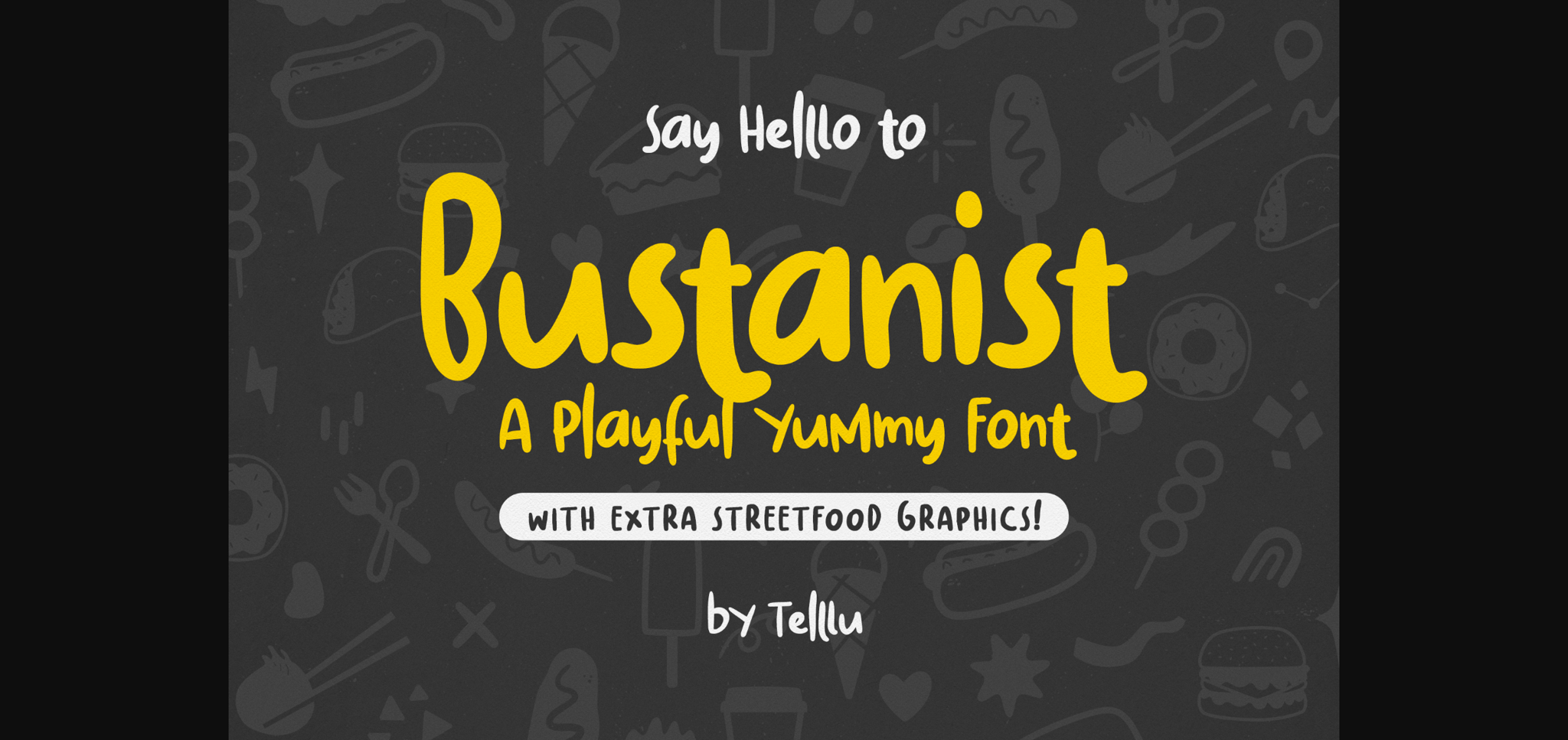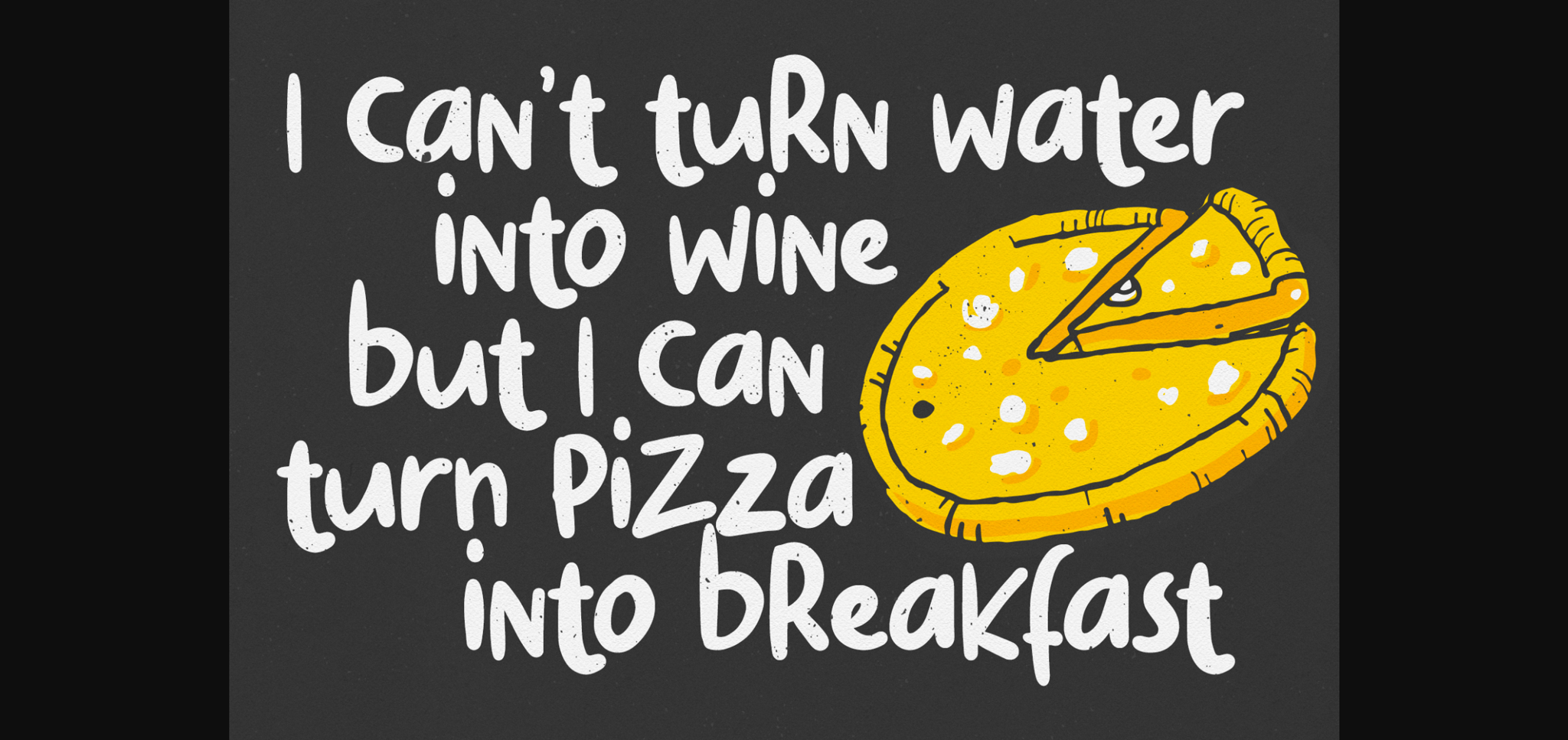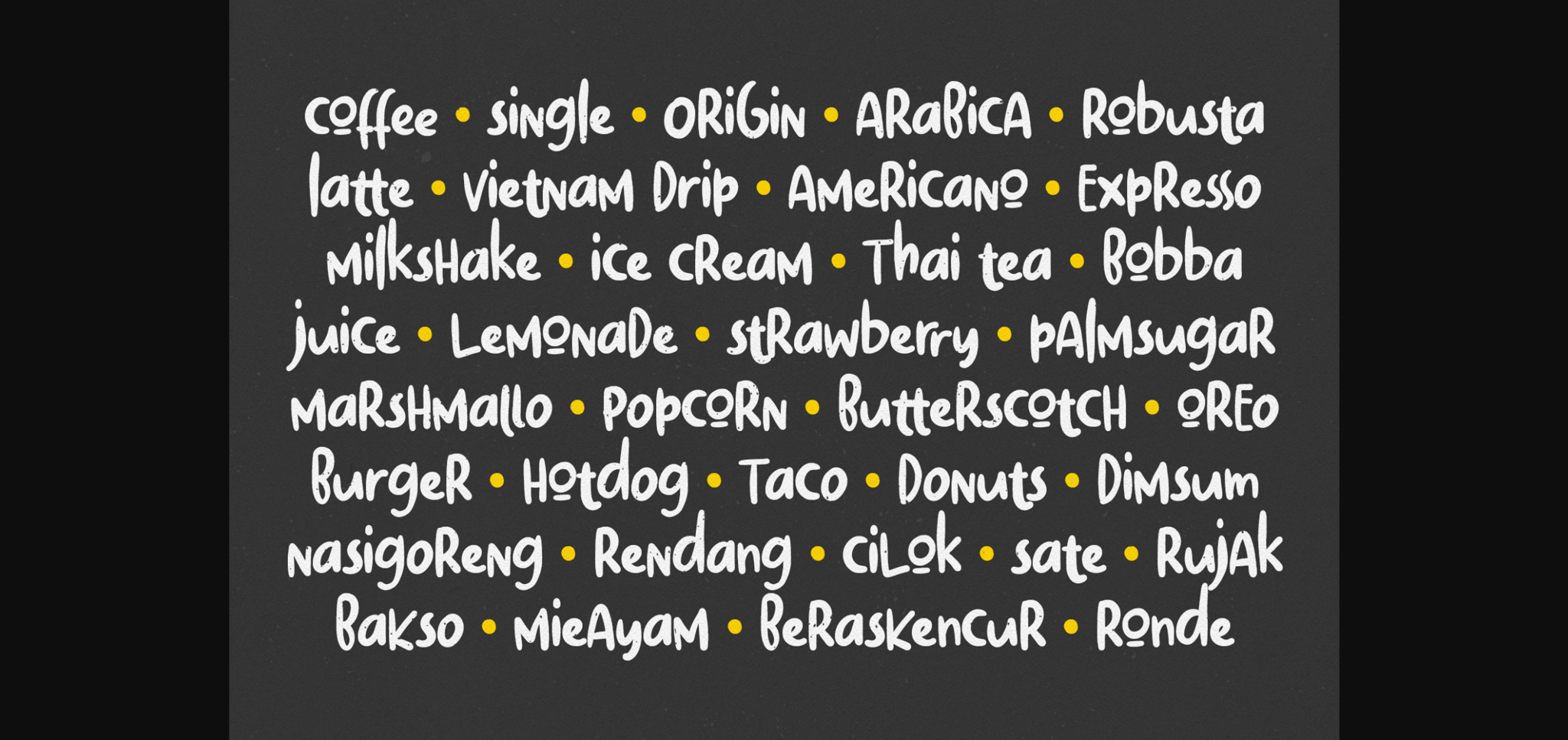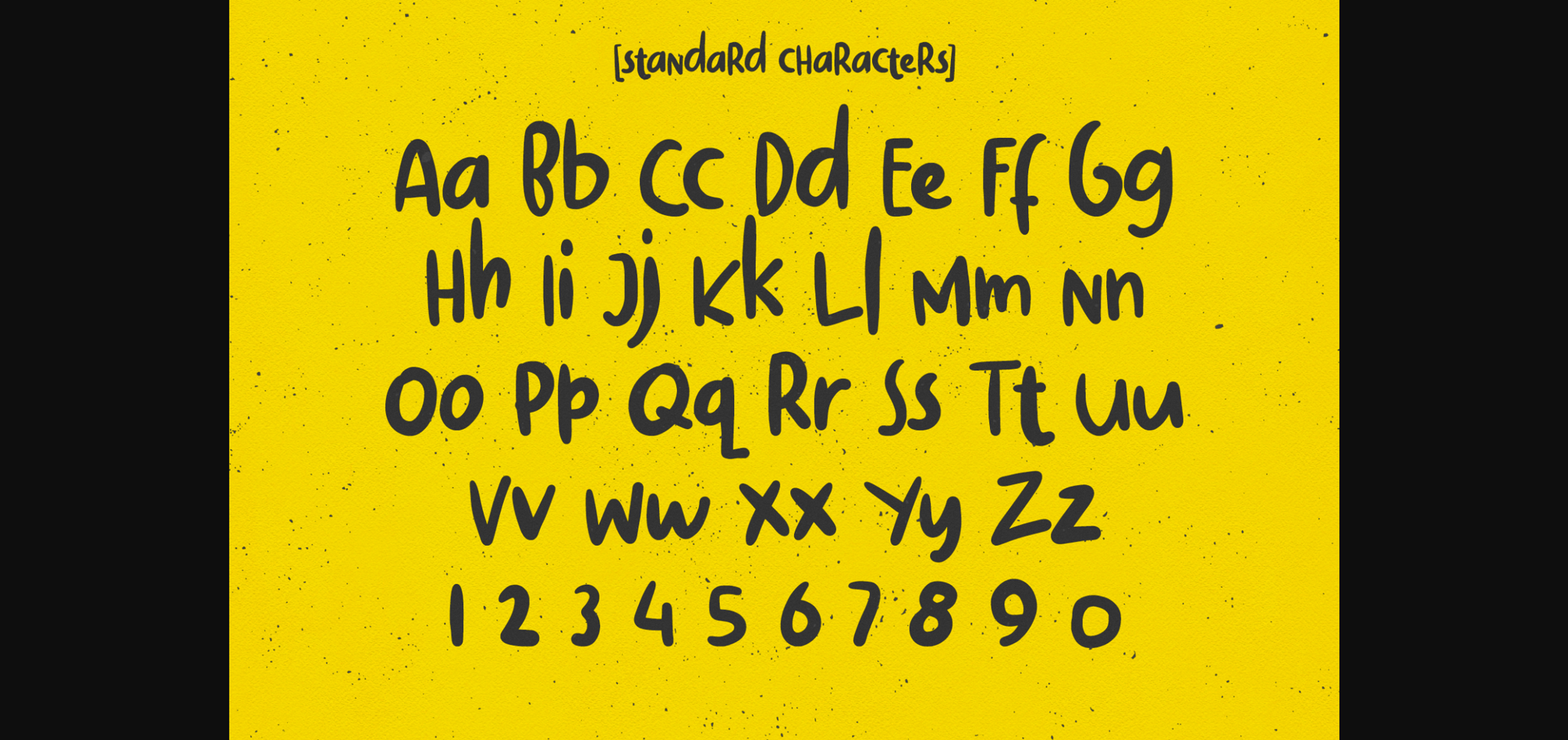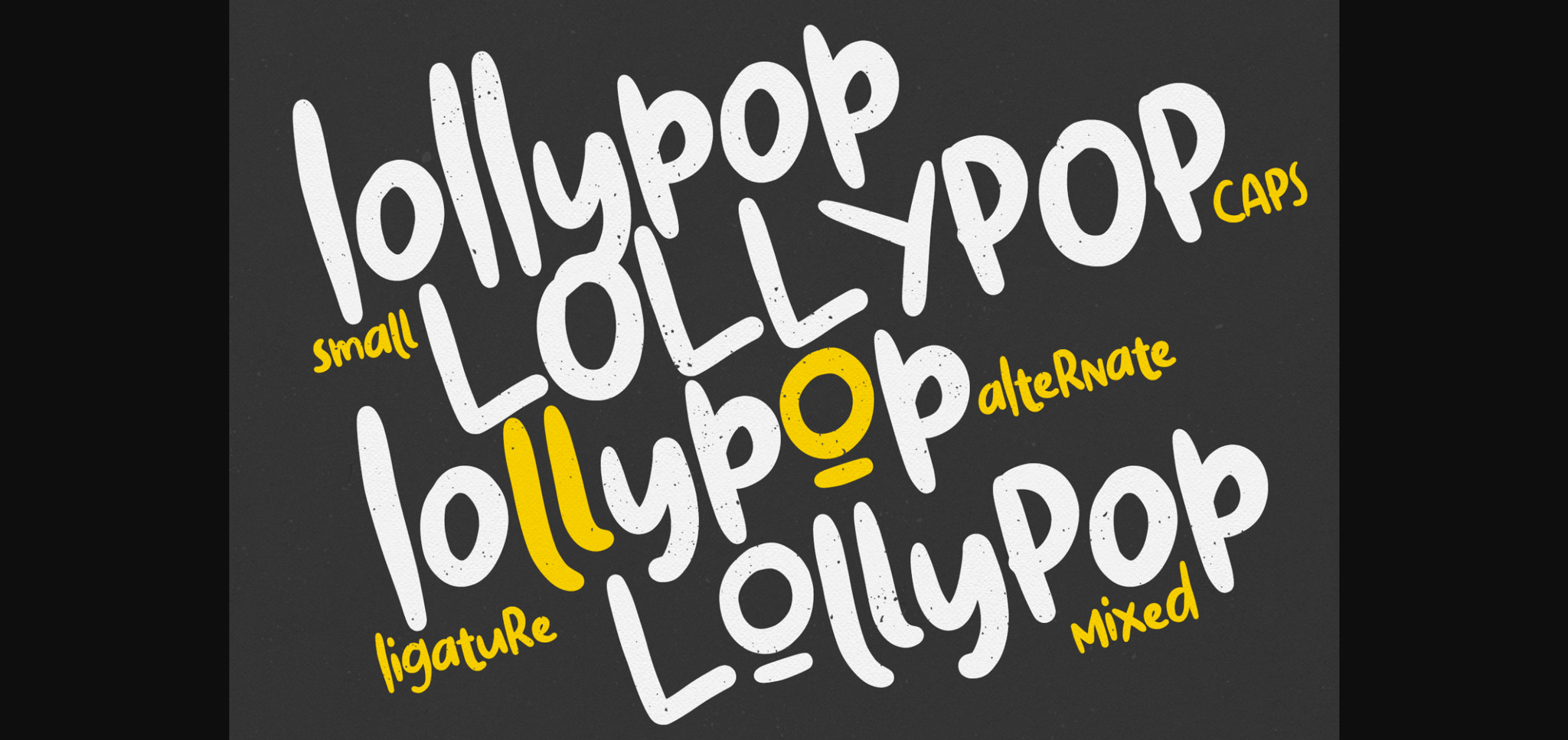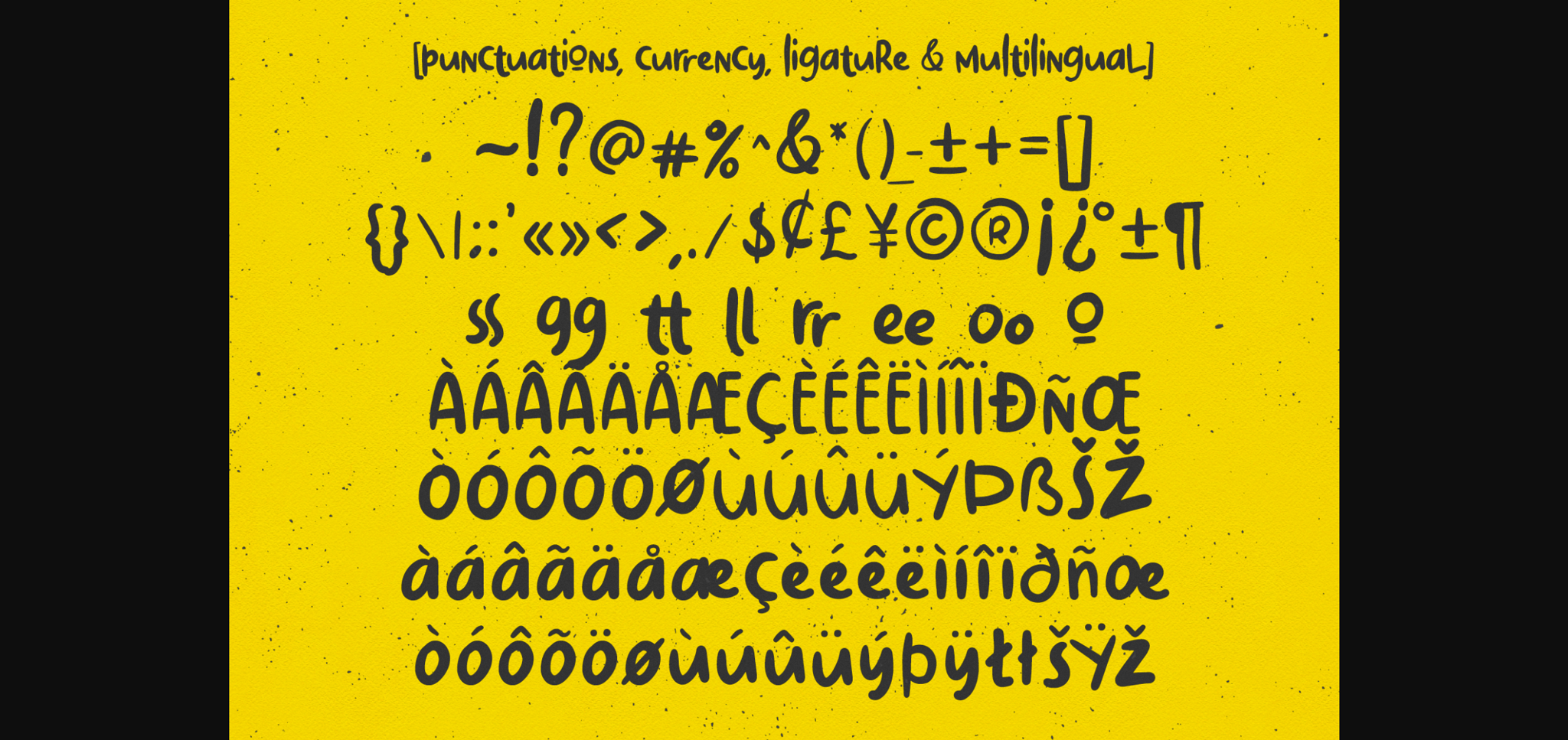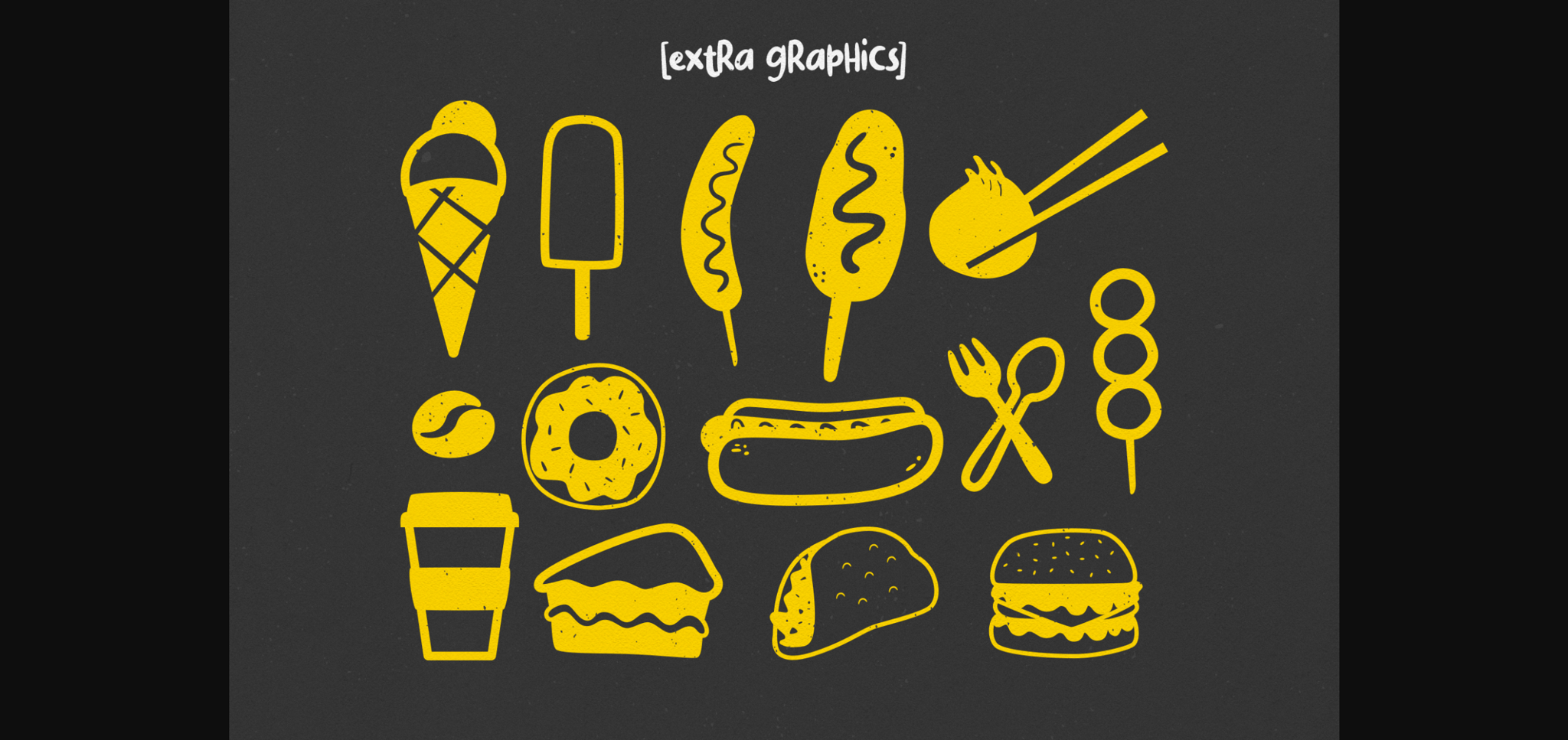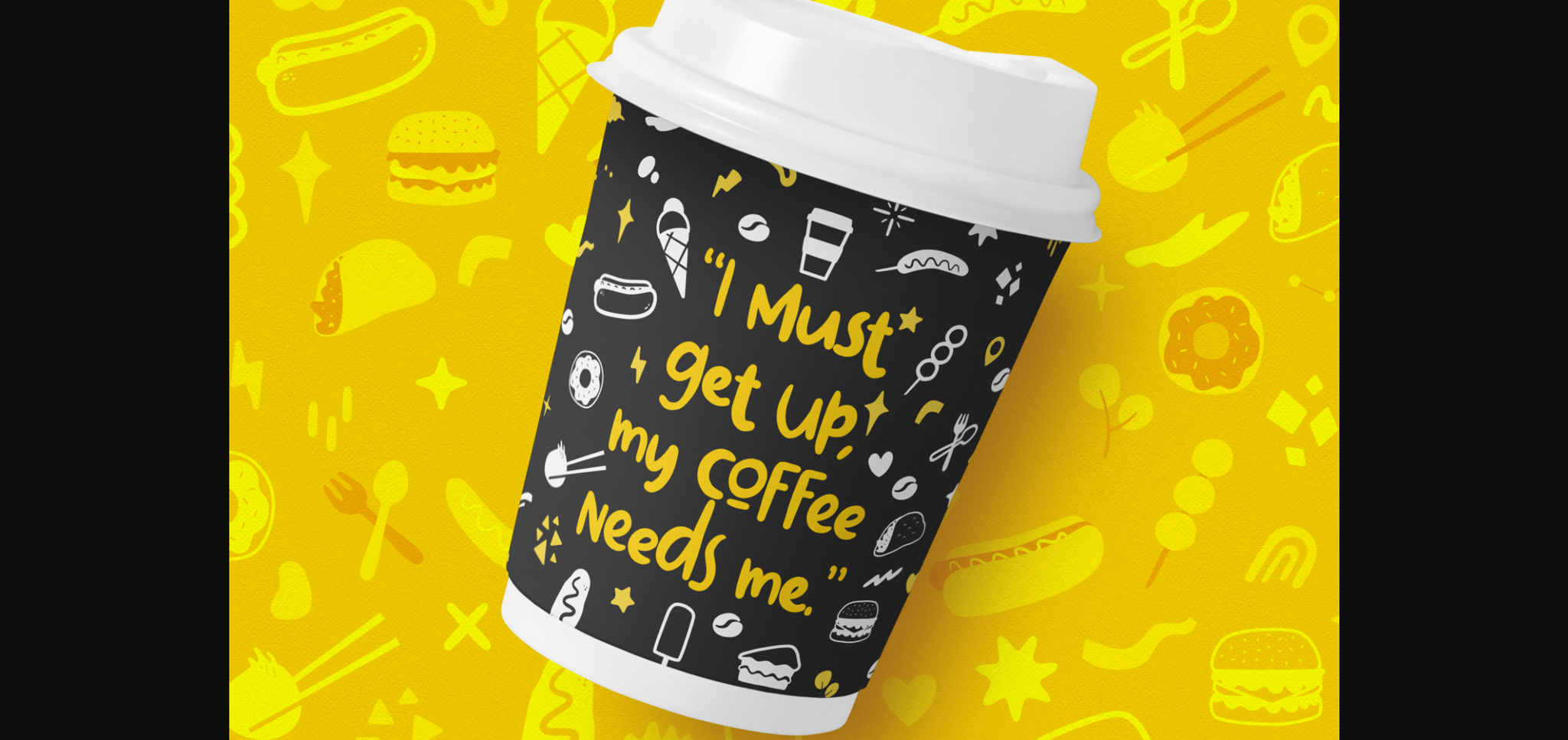
Bustanist Font
About Bustanist Font
Bustanist is a playful yummy font with extra street food graphics. It will add a playful touch to any crafting project.